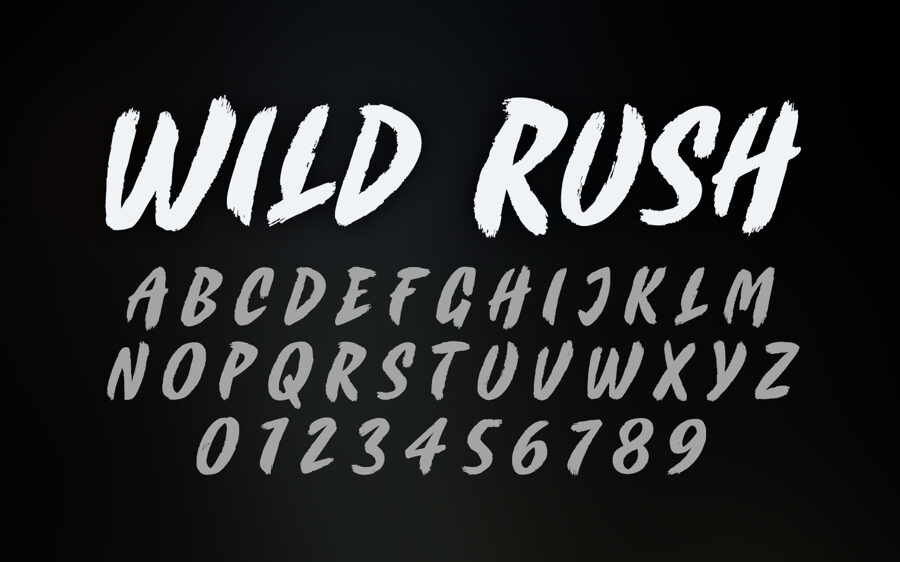
Wild Rush Font
Wild Rush is a dynamic script and brush font designed by Eko Bimantara. Featuring an energetic, hand-painted aesthetic, it brings a bold, adventurous flair to any design project.
Perfect for branding, posters, merchandise, and social media graphics, this versatile typeface combines raw artistic charm with strong legibility. It is 100% free for both personal and commercial use, making it an excellent choice for creators looking to add a creative edge to their work.